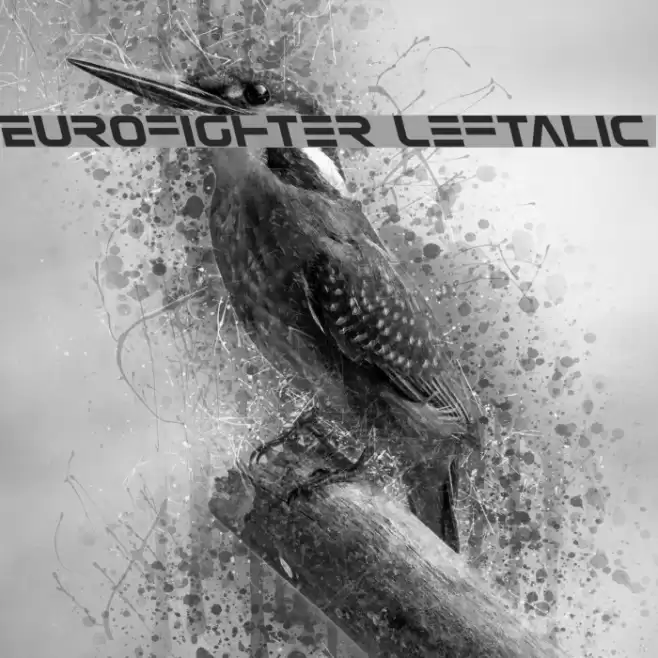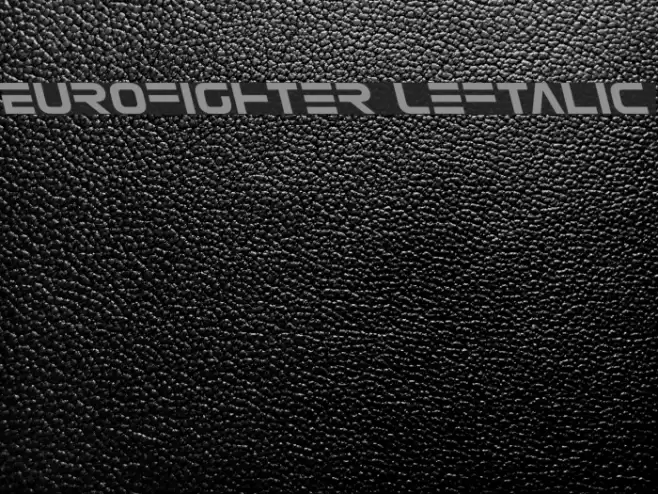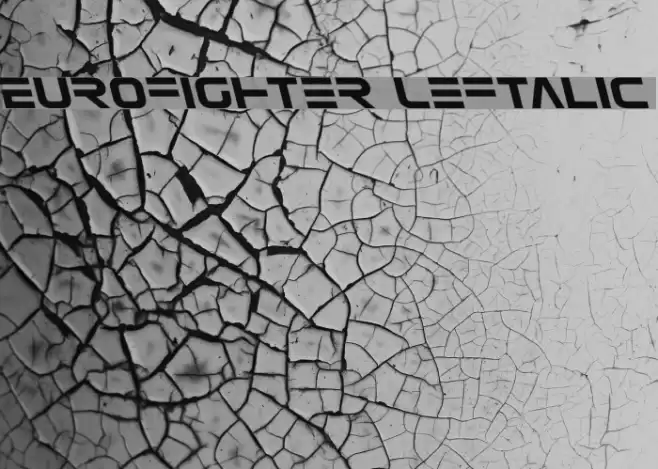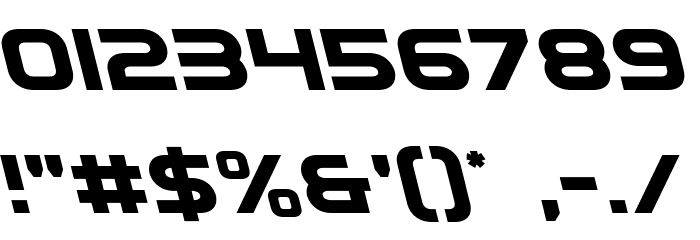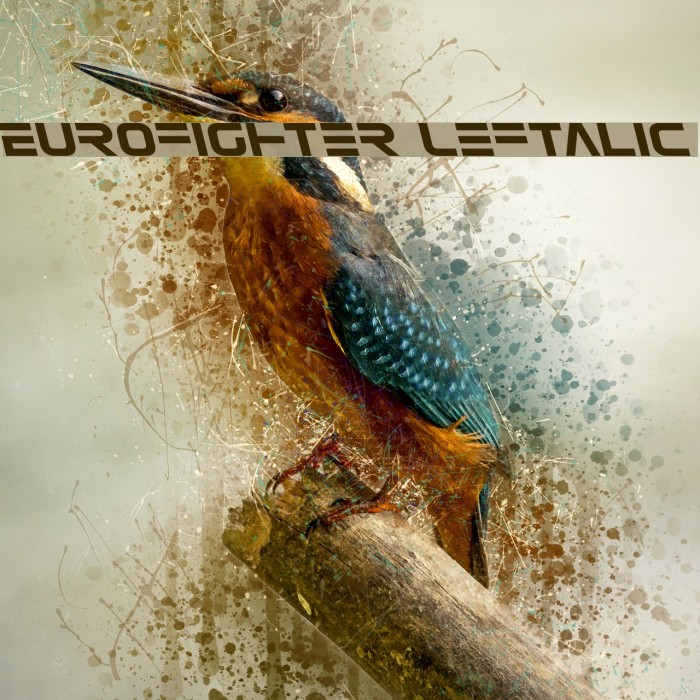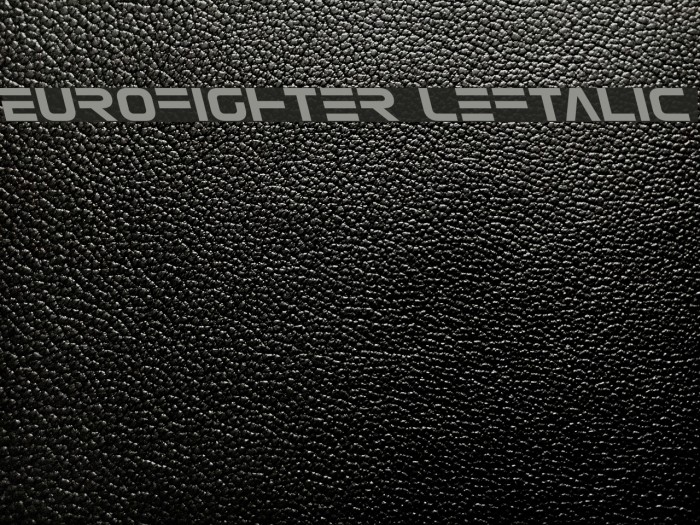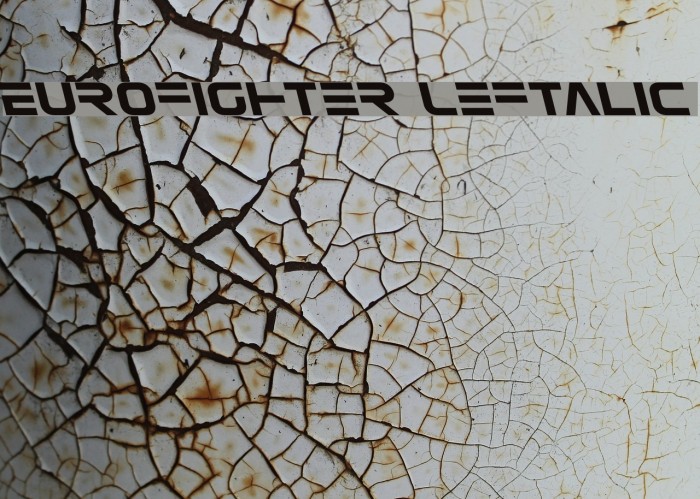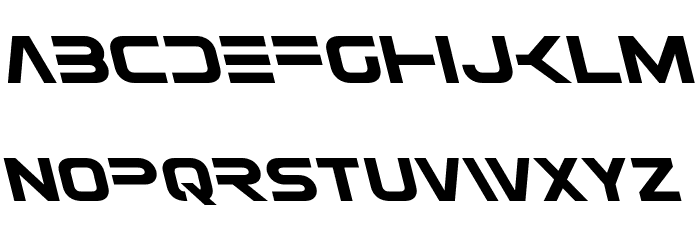
Eurofighter Leftalic Font
Eurofighter Leftalic Description
This font features a bold and dynamic style with a futuristic and angular design. The characters are sharply cut with a distinct slant, giving a sense of motion and speed. The uppercase letters are particularly striking, with unique geometric shapes that create a strong visual impact. The lowercase letters maintain the same angular aesthetic, ensuring consistency throughout the typeface. Numbers and special characters are designed to match the boldness and modernity of the alphabet, making this font suitable for a variety of applications where a contemporary and assertive look is desired.
A bold, futuristic font with angular, slanted characters from Uncategorized fonts.
- Proposed Projects: Ideal for branding, sports team logos, technology-related projects, and modern advertising campaigns.